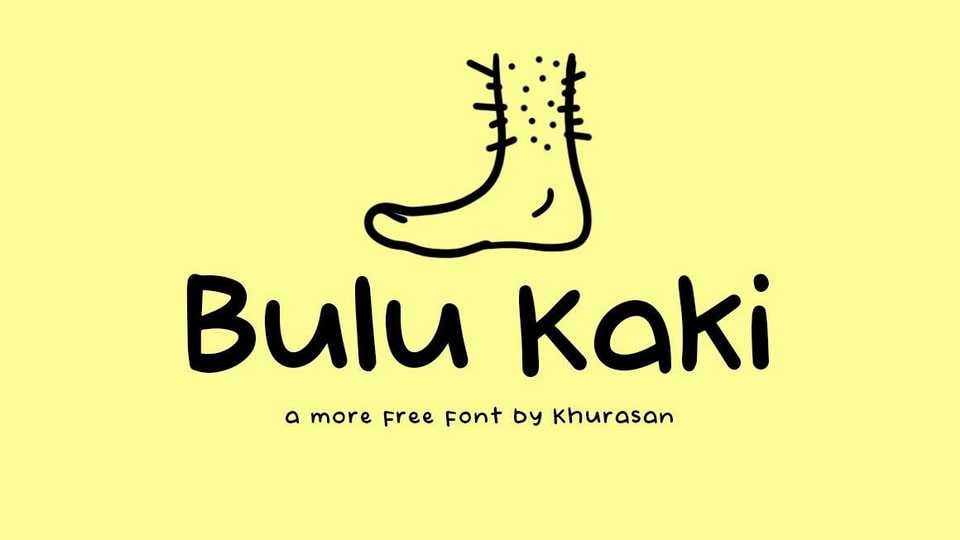
Download Bulu Kaki font, a modern and quirky handwritten typeface. Bulu Kaki is perfect for posters, logos, magazines, book covers, banners, and other lovely designs.